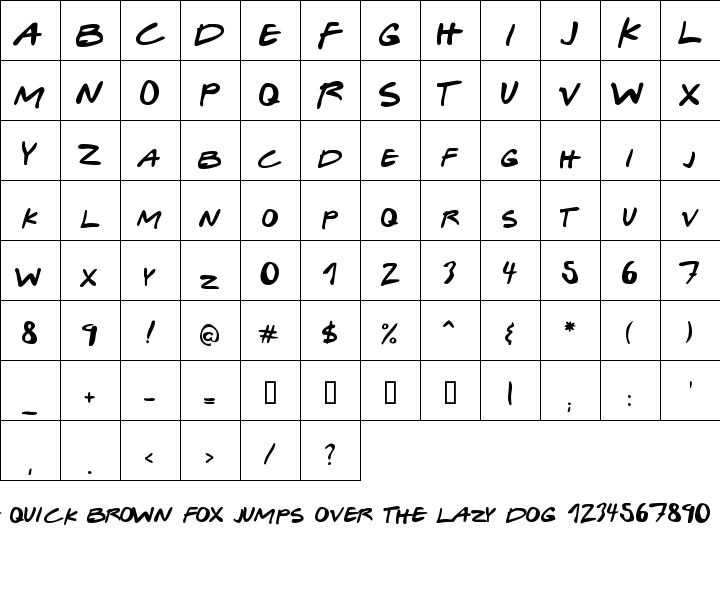
Friends font is a logo-based font that has a hand-written, bold, and immature texture appearance. This typeface designs on the concept of a font that was used in the logo of a famous American Television Show named “Friends”. The original typeface that was used in that show’s logo was Gabriel Weiss.
It has a hand-written and bold texture appearance that can provide your designs or projects with a creative texture visualization. Among other things, it may be used to create banners, brand labels, business cards, personal cards, and logos. This font style is also well-known for its copy and pastes ability.
You can use this font to create stunning designs on T-Shirts, Wallpaper Layouts, amazing thumbnails, etc. This typeface has also some of the typefaces that have a similar texture style with this font. But, Wild Words Font has one of the most similar personalities. So, it can also be utilized as an alternate to the Wild Words Font.
Creator of Friends Font
Gabriel Weiss original font that was used in the logo of this show was designed by Gabriel Weiss. He is a Swiss designer who has also created some of the famous typefaces. He focuses on creativity while creating this font style.
This amazing logo-based font style is designed with a single style. This single style is comprised of Numbers, Uppercase Letters, Symbols, Special Characters, glyphs, Punctuations, and many languages support.
It can support up to 54 languages.
What kind of font is Friends font?
It is a logo-based font type that is designed by Gabriel Weiss a famous typographic designer.
What font is closest to Friends Font?
Some of the typographies have an eerily similar feel to this design. Gabriel weiss font, on the other hand, is quite similar to this font. As an alternative to the Jim Lee Font style, this typeface can be utilized.